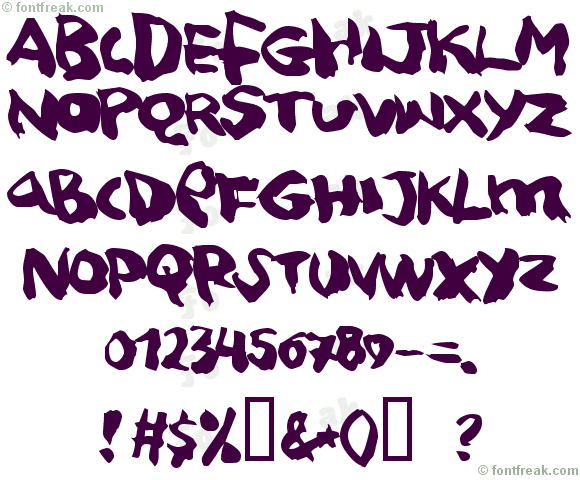
Squitcher
About Squitcher
Squitcher by Pizzadude is a unique display font that captures a playful, artistic spirit. Created by Jakob Fischer in 2003, this freeware font features a distinct, hand-drawn quality with irregular letterforms that give it a dynamic and spontaneous feel. The strokes are uneven, varying in weight, which adds to its expressive character. The spacing between characters is loose, enhancing its casual vibe, while the slightly exaggerated curves and angles impart a sense of movement.
This font is particularly well-suited for creative projects that require a touch of whimsy. It can be effectively used for eye-catching event posters, quirky restaurant menus, and vibrant children's book titles. Additionally, Squitcher works wonderfully for branding materials aimed at a youthful audience, such as merchandise for cafes or art studios. Its unique style makes it ideal for content creators looking to make a statement, as well as graphic designers seeking to infuse their projects with personality.
The target audience for Squitcher includes graphic designers, small business owners, and content creators who value originality and creativity in their work. Its playful nature makes it an excellent choice for those wanting to convey a fun and lighthearted message.
What sets Squitcher apart from other display fonts is its ability to evoke emotion and curiosity. The font's distinctive hand-drawn style offers a personal touch, making it memorable and engaging. For anyone looking to add a unique flair to their designs, the Squitcher font free download is a fantastic resource. Embrace the creativity and expressiveness that Squitcher brings to your projects, and let your designs stand out in a crowded visual landscape.